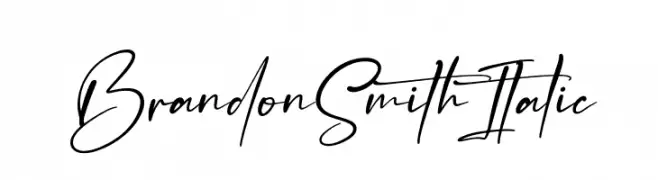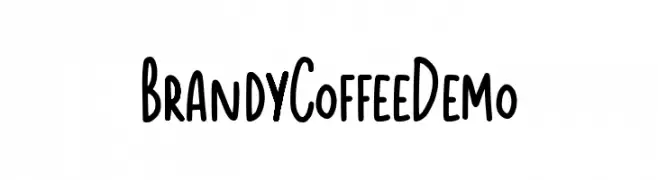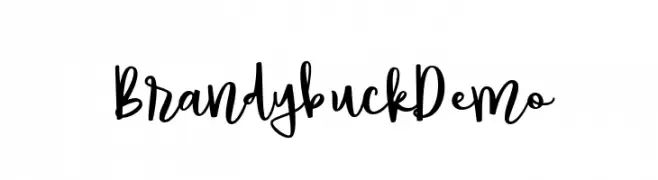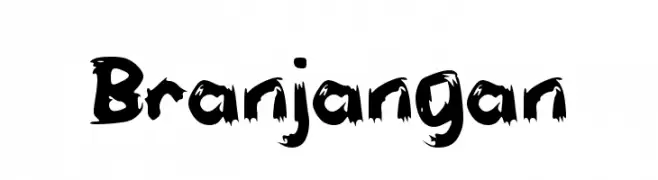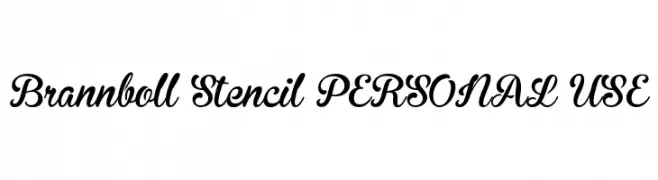
A cursive, handwritten font with elegant, flowing strokes.
A whimsical, handwritten font with playful and artistic strokes.
A sophisticated, high-contrast serif font with a modern and elegant style.
A graceful and fluid script font with elegant, flowing lines.
A playful, hand-drawn font with rounded, consistent strokes.
A playful, bold, and rounded font with smooth letterforms.
A bold, rounded font with a playful and approachable style.
A playful, handwritten-style font with rounded edges and consistent stroke thickness.
A playful, cursive script font with bold strokes and artistic flair.
A modern, elegant script font with flowing cursive style and graceful swashes.
An elegant script font with flowing, cursive letterforms and a classic calligraphic style.
An elegant and flowing script font with intricate, looping letterforms.
An elegant cursive font with flowing, sophisticated strokes.
A modern, elegant script font with flowing cursive letters and high contrast.
An elegant and flowing script font with ornate uppercase and smooth lowercase letters.
A bold, playful font with rounded, decorative characters.
An elegant script font with flowing, cursive style and intricate swashes.
A playful, hand-drawn font with rounded, flowing strokes.
A sophisticated and elegant script font with flowing, cursive letterforms.
A bold, playful font with rounded, interconnected characters.
A bold, calligraphic font with expressive, flowing characters.
A modern, high-contrast font with geometric influences and elegant strokes.
An elegant script font with intricate loops and flourishes, perfect for formal and decorative uses.
A bold and elegant script font with smooth, flowing strokes.
A graceful and elegant script font with smooth, flowing strokes.
A modern, geometric font with clean lines and sharp angles.
An elegant cursive font with decorative flourishes and a sophisticated style.
A refined and elegant script font with flowing, interconnected letters and decorative flourishes.
A bold, brush-like font with an artistic and expressive style.
An elegant, flowing script font with a sophisticated, handwritten style.
A bold, expressive font with sharp serifs and playful curves.